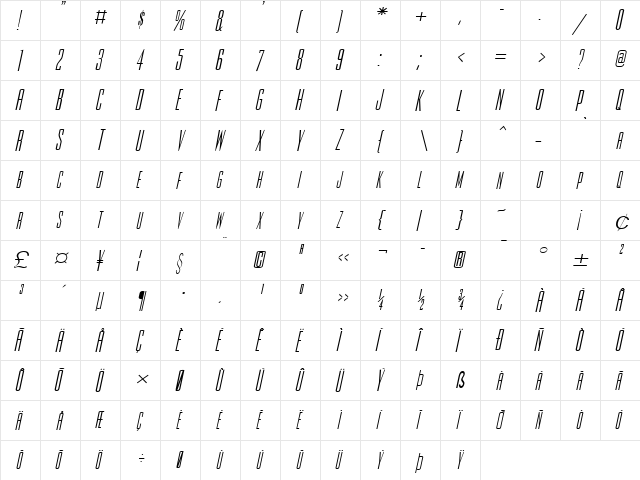
Slim Jim-Extended Italic
Design Context for Slim Jim-Extended Typeface
Slim Jim-Extended is a composed and adaptable typeface that performs quietly and consistently across a wide range of design contexts. The slanted form adds forward momentum and visual energy.